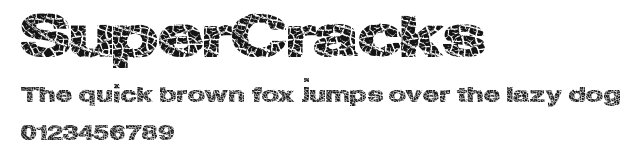
• Font Name: SuperCracks
• Designer: Max Infeld
• Manufacturer: Xerographer Fonts
• Description: Made at Xerographer Studios chico,CA
About SuperCracks.ttf
SuperCracks.ttf is a modern, elegant sans-serif font designed for ultimate readability and visual harmony. Perfect for branding, headlines, web design, and print materials.